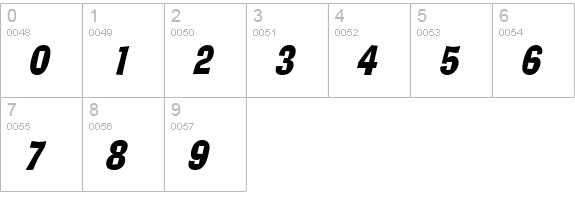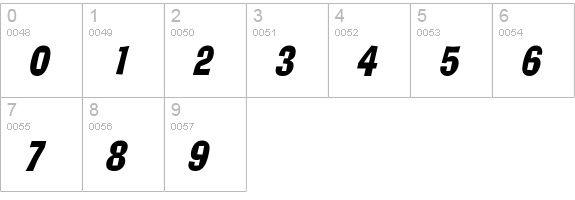
Alor Narrow Condensed BoldItalic Font Details
Alor Narrow Condensed BoldItalic is a distinctive, condensed-width variant in the Alor typeface family \xE2\x80\x94 well suited to design and typography projects.
The Alor Narrow Condensed BoldItalic font is a sleek and modern typeface that exudes sophistication and elegance. Its bold and italic design makes it perfect for adding emphasis and style to your designs. The condensed form of this font allows for more text to be displayed in a limited space, making it ideal for use in headlines, titles, and other display settings. What sets the Alor Narrow Condensed BoldItalic font apart is that it is available for free download at FontsMarket.com. This means that you can easily access this high-quality typeface without any cost, making it a valuable addition to your font collection. Whether you are a graphic designer, web developer, or creative professional, the Alor Narrow Condensed BoldItalic font offers versatility and flair to enhance your projects. Unlock the potential of this font today and elevate your designs with its bold and italic charm.